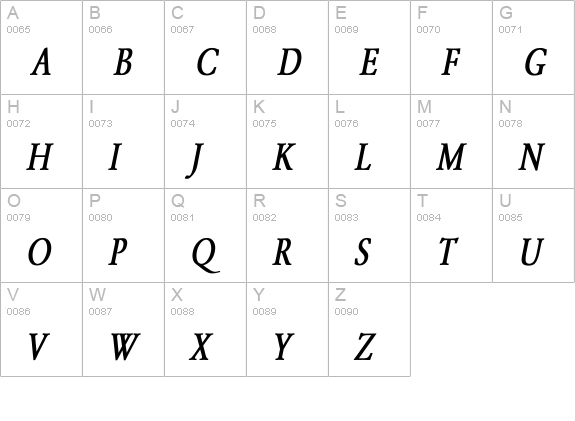
Yearlind-Normal Condensed Bold Italic Font Details
Yearlind-Normal Condensed Bold Italic is the standard, neutral, condensed-width, italic variant in the Yearlind typeface family \xE2\x80\x94 well suited to general body text, paragraphs, and standard typographic work.
Yearlind-Normal Condensed Bold Italic is a stylish and modern font that exudes confidence and sophistication. Its bold and italicized design adds a touch of flair to any project, making it perfect for headlines, titles, and other attention-grabbing text. The condensed style of the font allows for efficient use of space without compromising on readability. What's even better is that Yearlind-Normal Condensed Bold Italic is available for free download at FontsMarket.com. This means you can elevate your designs without any cost, making it a valuable addition to your font library. Whether you're working on a professional project or a personal creative endeavor, this font is sure to make a statement and leave a lasting impression. Download it today and unleash the power of Yearlind-Normal Condensed Bold Italic in your designs.